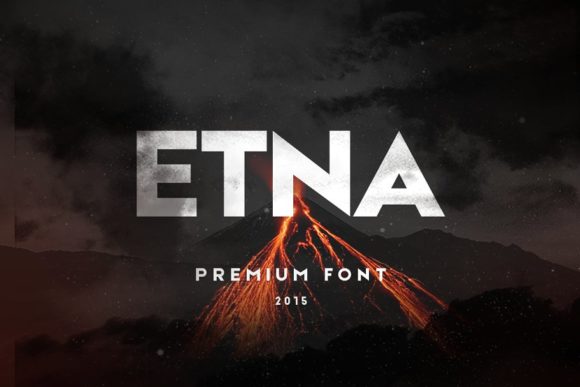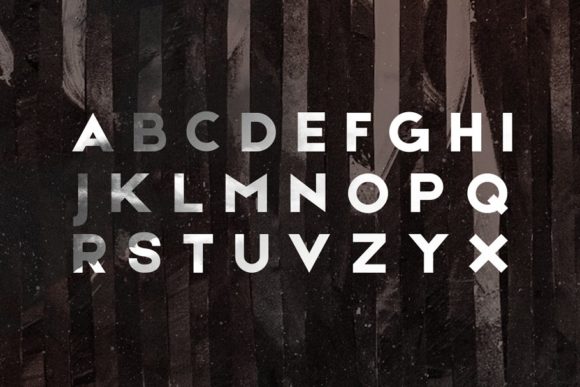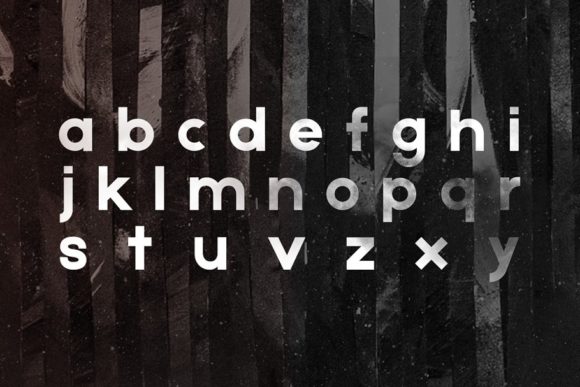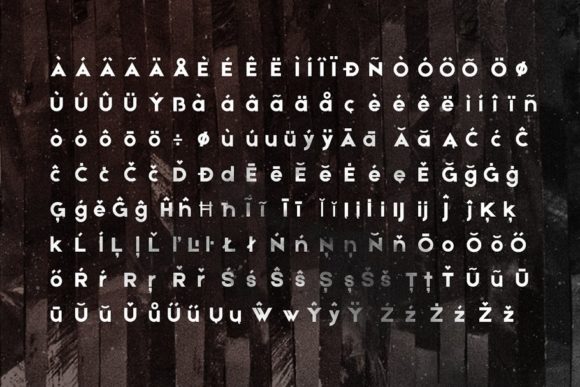
Etna Font: Bold Sans Serif for Logo Design & Headline Fonts
About the Etna Font
We are excited to introduce Etna Font, a must-have typeface for any serious designer. Etna is a simple and casual sans serif font with an undeniably clean feel. With its neat and beautiful arrangement of letters, this typeface will look outstanding in both formal and non-formal designs.
Etna’s clean, casual style makes it ideal for headlines, short-form text on posters or packaging, and branding elements where a friendly yet modern aesthetic is desired. It works particularly well for logos, short taglines, and website titles. However, its simplicity might become monotonous in large blocks of body text or lengthy paragraphs. Avoid using it for UI elements requiring high readability at small sizes.
To complement its approachable yet sophisticated feel, pair Etna with a classic serif like Garamond for a balanced contrast or a geometric sans-serif like Futura for a more modern and unified look. A playful script font such as Pacifico could also be used for accents, adding a touch of personality without overwhelming Etna’s clean lines.
Etna’s overall personality is best described as friendly and modern. Its understated elegance makes it versatile, while its casual feel prevents it from appearing overly formal or stiff.
Etna Font Example